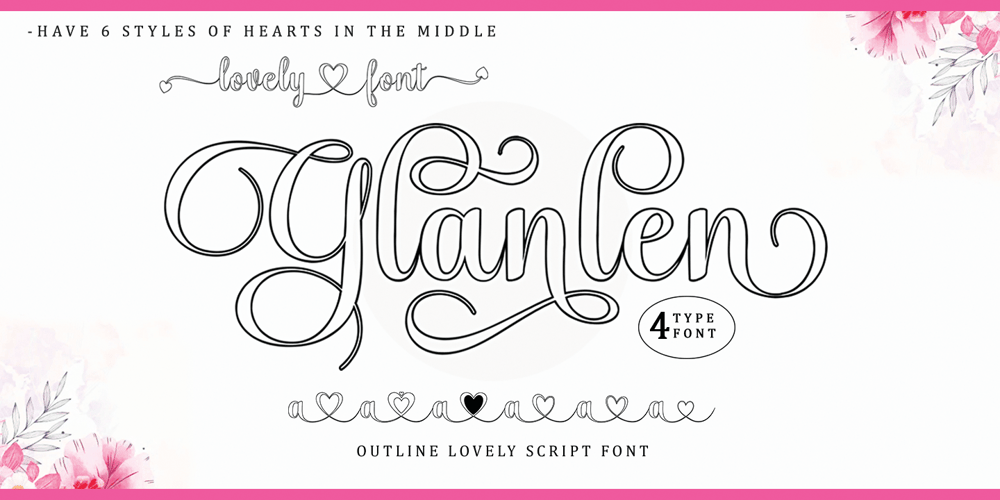
Glanlen Font Family was designed by Muhammad Nazar and published by Bungletter. Glanlen contains 4 styles and family package options. Glanlen Outline is a very Beautiful, elegant and unique Script font. Expertly designed to become a true favorite, this font has the potential to take your creative ideas to the highest level!Glanlen Outline is appealing because it’s sleek, clean, feminine, sensual, glamorous, simple and highly readable, thanks to its many luxurious letter connections. I also offer a number of viable alternative styles for all letters. Classic style is very suitable to be applied in various formal forms such as invitations, labels, restaurant menus, logos, fashion, make up, stationery, novels, magazines, books, greeting cards/weddings, packaging, labels or all kinds of advertisements. for your purposes. . . . . . .Contains full set:-4 Type Font-Uppercase -Lowercase -Alternative -Ligature -Punctuation -Number -Multilingual support.Need help or have questions let me know. I’m happy to help.Thank you & Congratulations on the Design.